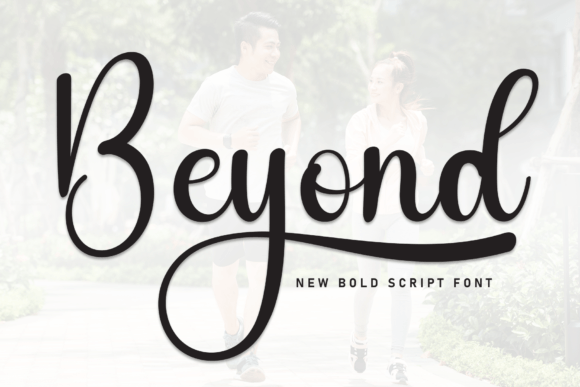
Beyond Font: Adding a Touch of Whimsy to Your Designs
Are you looking for a font that can add a dash of fun and personality to your designs? Look no further than Beyond Font! This sweet and friendly handwritten font is perfect for creating wedding invitations, cards, and other designs that require a touch of whimsy. In this article, we’ll dive into the world of Beyond Font and explore its features, uses, and benefits.
What is Beyond Font?
Beyond Font is a beautiful, handwritten font that exudes warmth and friendliness. Its cute and fun design makes it an ideal choice for designers and crafters who want to add a personal touch to their work. Whether you’re creating wedding invitations, greeting cards, or social media graphics, Beyond Font is sure to make your designs stand out.
Key Features of Beyond Font
- Handwritten design: Beyond Font has a unique, handwritten look that gives it a personal and relatable feel.
- Cute and fun: This font is perfect for designs that require a touch of whimsy and playfulness.
- Versatile: Beyond Font can be used for a wide range of designs, from wedding invitations to social media graphics.
- Easily readable: Despite its playful design, Beyond Font is easy to read and understand, making it perfect for body text and headings.
Uses of Beyond Font
Beyond Font is an incredibly versatile font that can be used for a wide range of designs. Here are some ideas to get you started:
- Wedding invitations: Add a touch of romance and whimsy to your wedding invitations with Beyond Font.
- Greeting cards: Create fun and playful greeting cards for birthdays, holidays, and other special occasions.
- Social media graphics: Use Beyond Font to create eye-catching social media graphics that showcase your brand’s personality.
- Blog posts: Add a touch of personality to your blog posts with Beyond Font, making them more engaging and fun to read.
Benefits of Using Beyond Font
So, why should you choose Beyond Font for your designs? Here are some benefits to consider:
- Unique and creative: Beyond Font adds a touch of creativity and uniqueness to your designs, setting them apart from the rest.
- Easy to use: This font is incredibly easy to use, even for designers who are new to handwriting fonts.
- Customizable: Beyond Font can be customized to fit your brand’s style and personality, making it a great choice for branding and marketing materials.
- Time-saving: With Beyond Font, you can create beautiful designs in no time, saving you time and effort.
Tips for Using Beyond Font
Here are some tips to help you get the most out of Beyond Font:
- Pair it with other fonts: Combine Beyond Font with other fonts to create a unique and interesting design.
- Experiment with colors: Try out different colors and color combinations to add depth and interest to your designs.
- Use it for headings and titles: Beyond Font is perfect for headings and titles, adding a touch of personality and whimsy to your designs.
- Don’t be afraid to get creative: Beyond Font is a versatile font that can be used in many different ways, so don’t be afraid to experiment and try new things!
Beyond Font is a sweet and friendly handwritten font that’s perfect for adding a touch of whimsy to your designs. With its cute and fun design, versatility, and ease of use, it’s an ideal choice for designers and crafters who want to create unique and engaging designs. Whether you’re creating wedding invitations, greeting cards, or social media graphics, Beyond Font is sure to make your designs stand out. So why not give it a try and see the difference it can make?